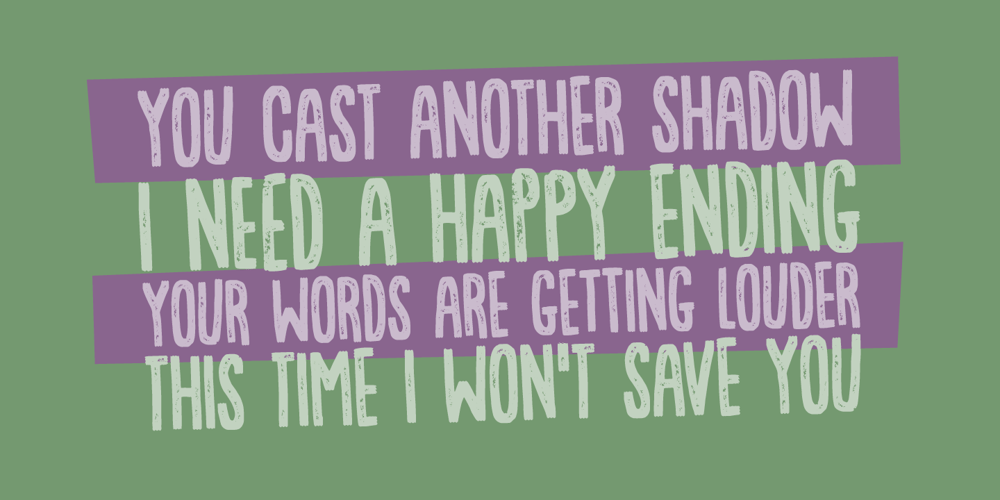
Sovetryne
Sovetryne font
Sovetryne Font Family was designed by Jakob Fischer and published by PizzaDude.dk. Sovetryne contains 1 styles and family package options. Ahhh, who doesn’t want to sleep late? That’s excactly what a “sovetryne” wants … even though he/she often sleeps way to much! But that’s not the case with this font. It’s legible, even though it’s slightly worn. Change between upper- and lowercase letters to variate the typing – and turn on ligatures, in order to use the substitution of double letters such as aa, bb, cc and many more!